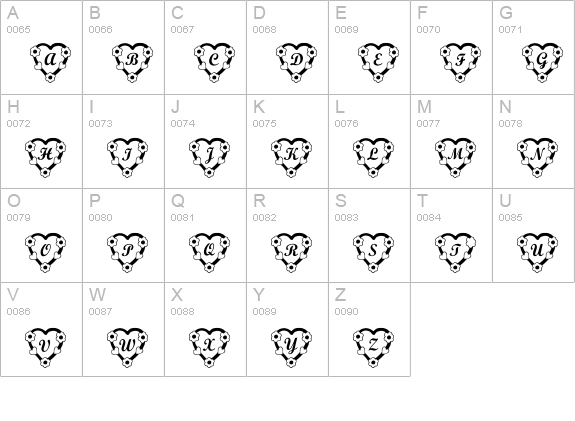
RMFlwrHt is a beautiful and ornate font that exudes elegance and sophistication. Its intricate floral motifs and delicate curves make it perfect for adding a touch of romance to any design project. Whether you're creating wedding invitations, greeting cards, or simply looking to add a touch of beauty to your personal documents, RMFlwrHt is the ideal choice. This font is not only visually stunning, but also incredibly versatile. It can be used for both headlines and body text, ensuring that your message is conveyed with the utmost clarity and style. The attention to detail in each letterform is truly remarkable, making RMFlwrHt a standout choice among other decorative fonts. One of the best things about RMFlwrHt is that it is freely available to download at FontsMarket.com. This means that you can add this stunning font to your collection without any cost. Whether you're a professional designer or simply a font enthusiast, having access to high-quality fonts like RMFlwrHt is essential. And with its availability for free, there's no reason not to give it a try. So why wait? Download RMFlwrHt today and let its beauty and elegance enhance your design projects. Whether you're creating a romantic wedding invitation or adding a touch of flair to a personal project, this font will undoubtedly leave a lasting impression. Explore the endless possibilities that RMFlwrHt offers and elevate your designs to new heights.